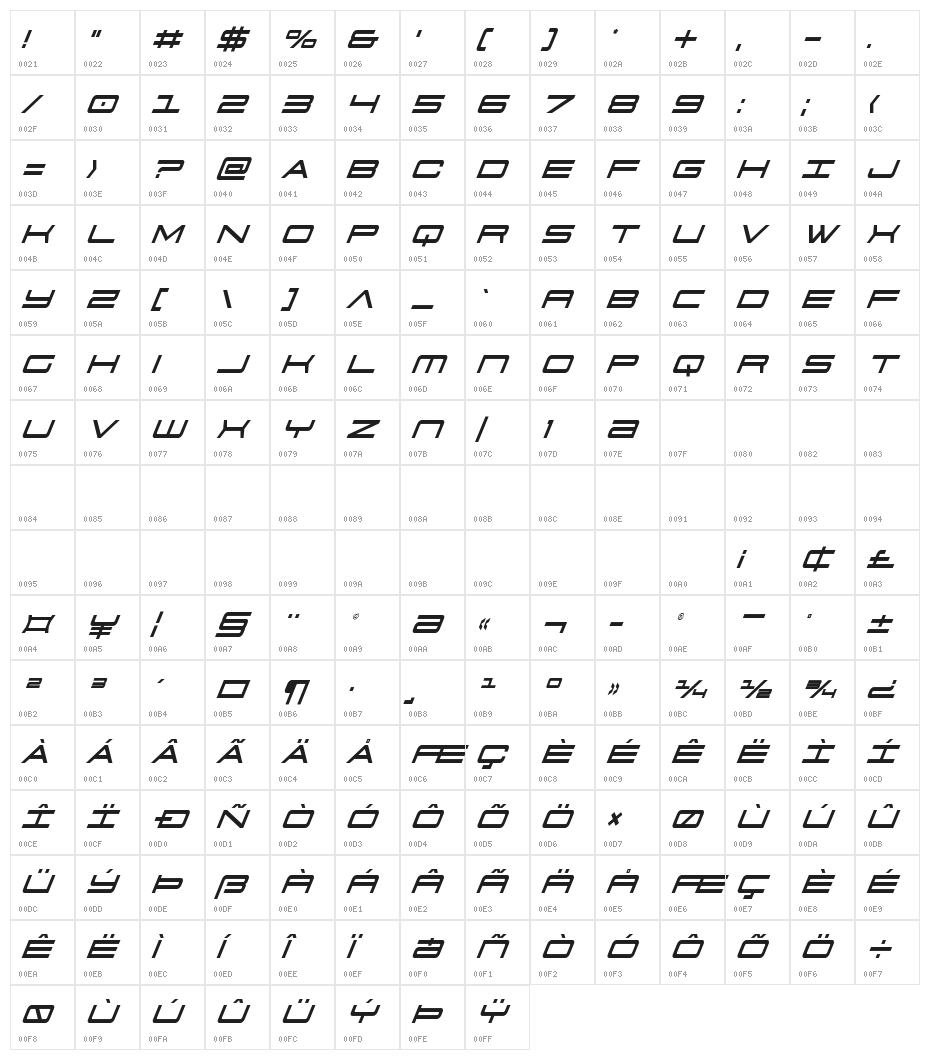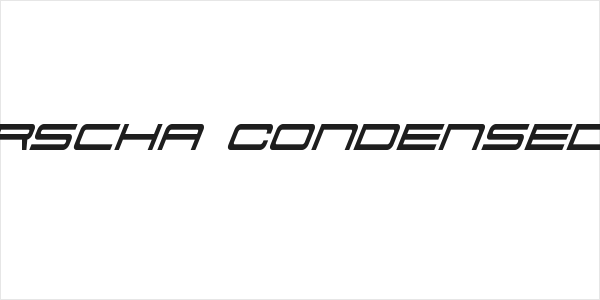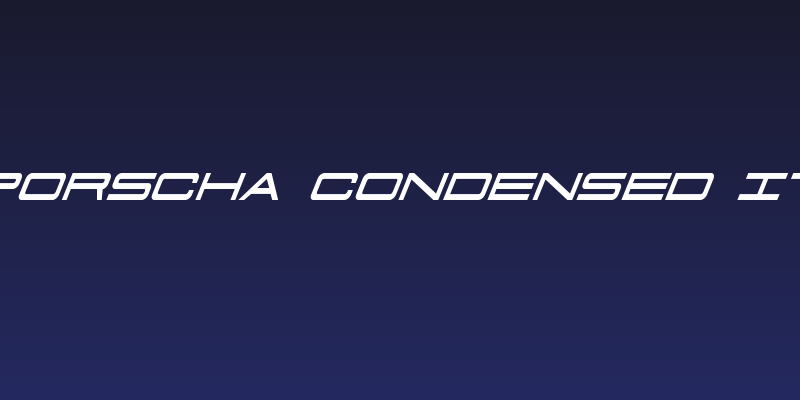
911 Porscha Condensed Italic Font
911 Porscha Condensed Italic Description
This font features a sleek, modern design with a condensed and italicized style. The characters are slightly slanted, giving a sense of motion and speed, which is enhanced by the narrow width of each letter. The font maintains a uniform stroke thickness, providing a clean and streamlined appearance. Its geometric shapes and sharp angles contribute to a futuristic and dynamic look, making it ideal for projects that require a contemporary and energetic feel. The spacing between characters is tight, further emphasizing the compact and efficient design.
| Use Case | Logos, Headlines |
| Proposed Projects | Ideal for automotive branding, technology logos, sports event posters, and modern web design. |